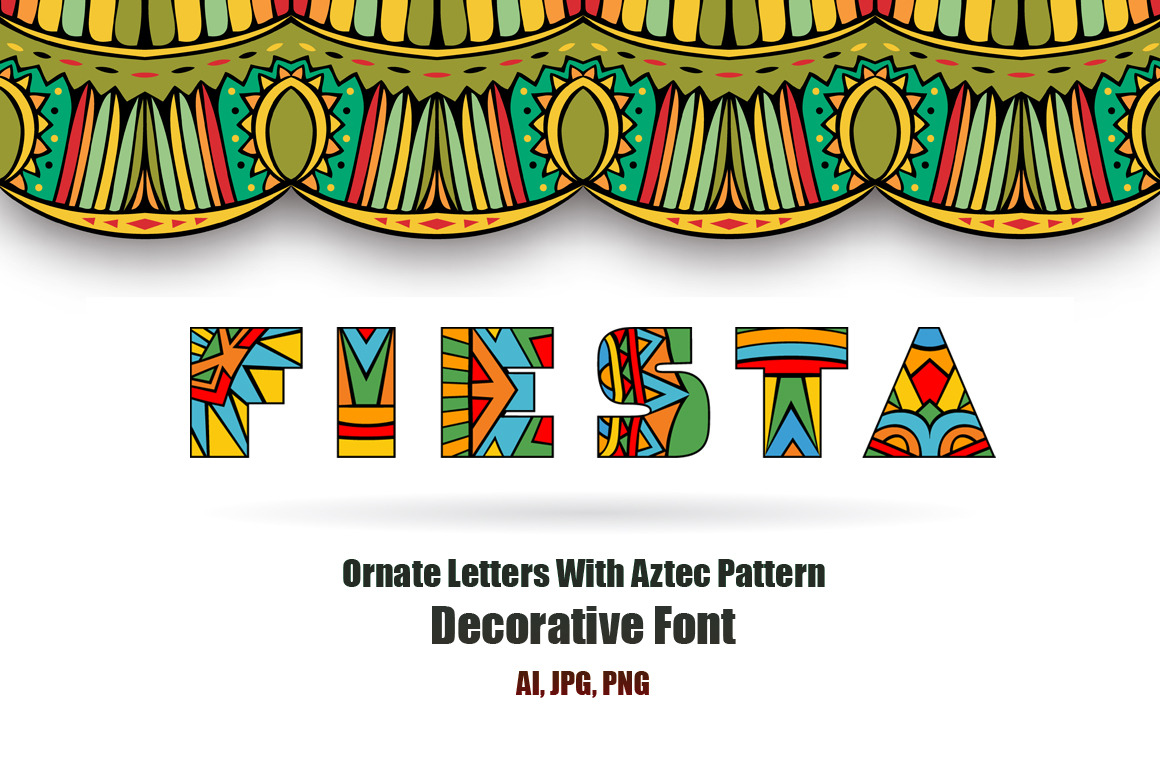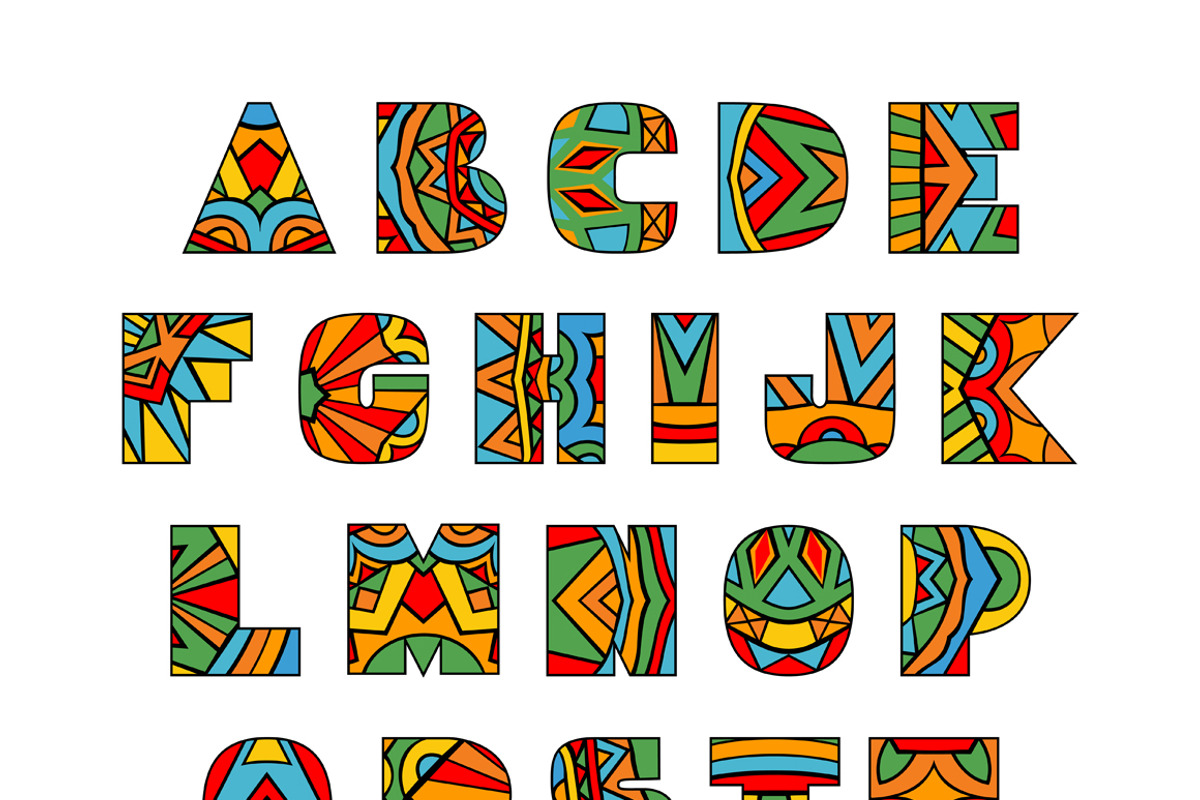
Fiesta ABC Letters Vector Font
I hope you will find usefull this set of ABC letters with abstract Aztec ethnic pattern. This rich ornate alphabet in Mexican culture style is good for cards, flyers etc. Simply for use - just open vector file, select and copy letters you need to new file, complete word or phrase and arrange letters by center line.